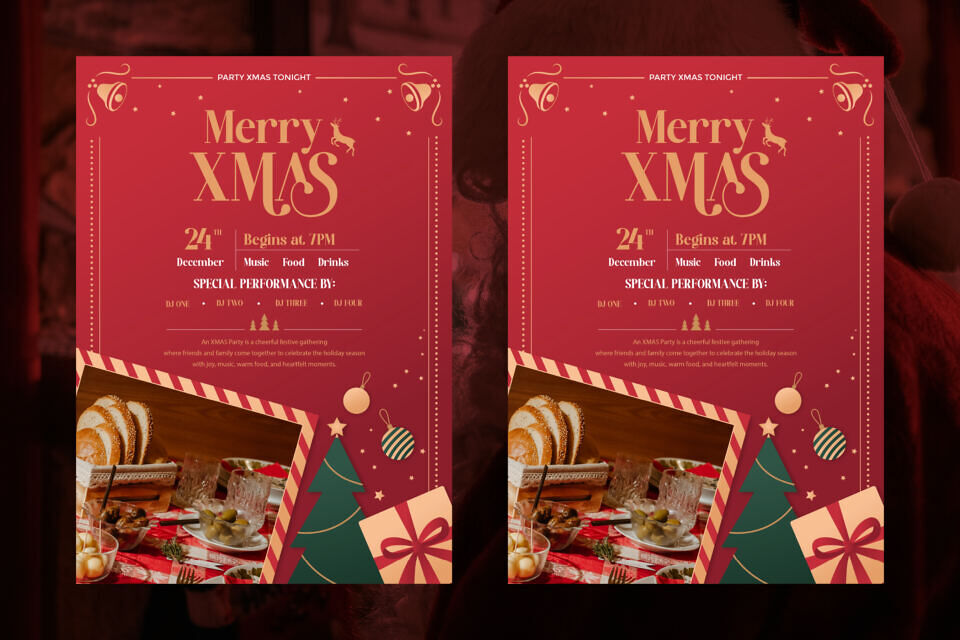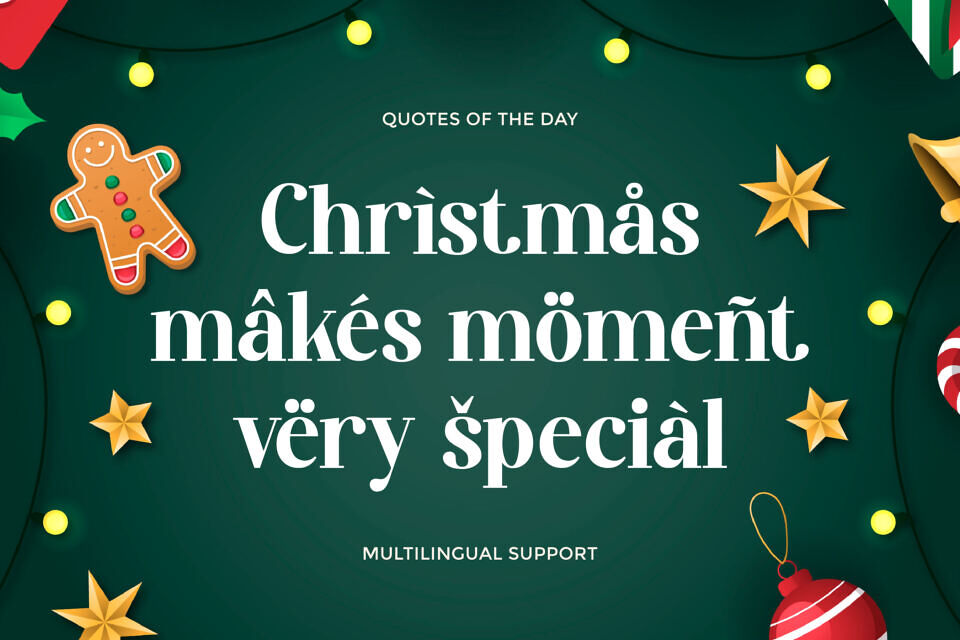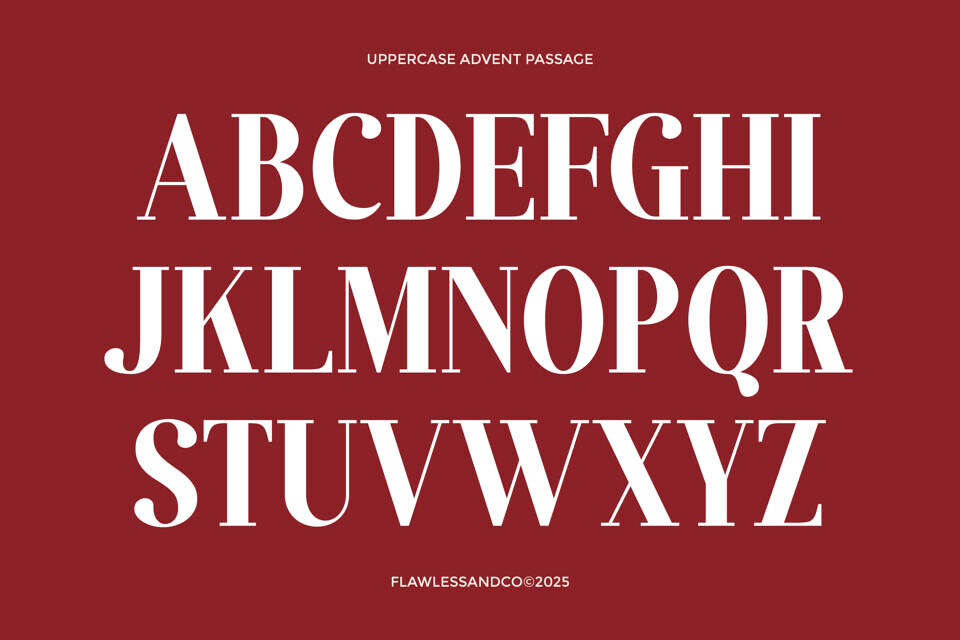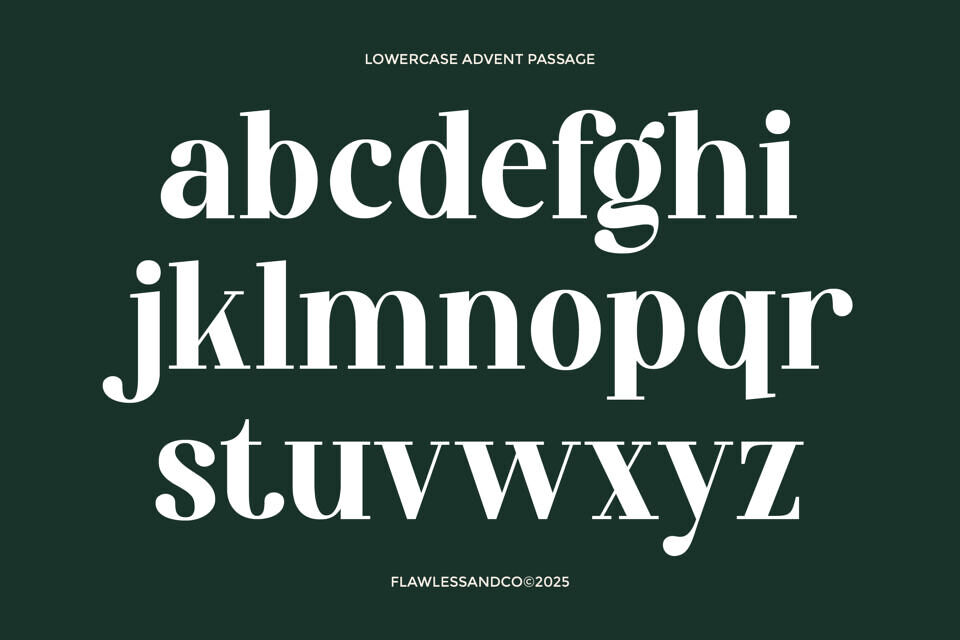
Advent Passage Font
Advent Passage is an elegant serif font designed to bring a refined, timeless, and festive feel to your designs. With its graceful letterforms, classic proportions, and stylish details, this font is perfect for creating a luxurious and warm atmosphere—especially for holiday and seasonal projects.